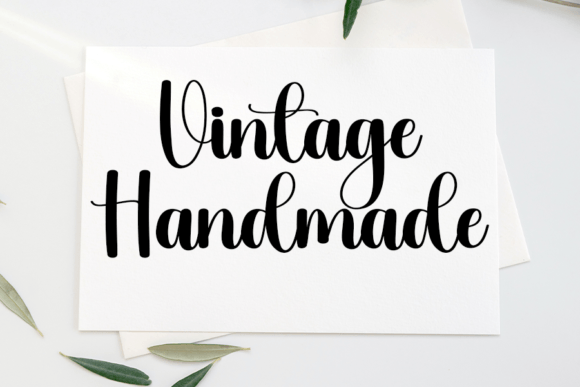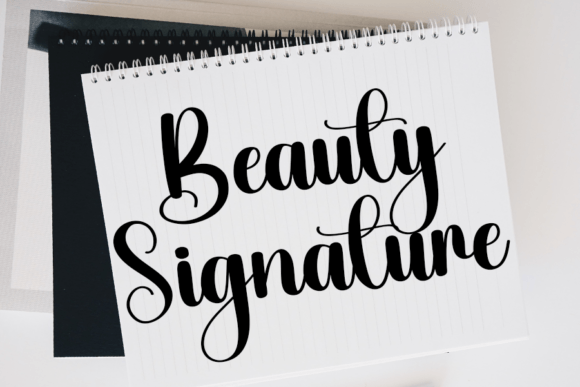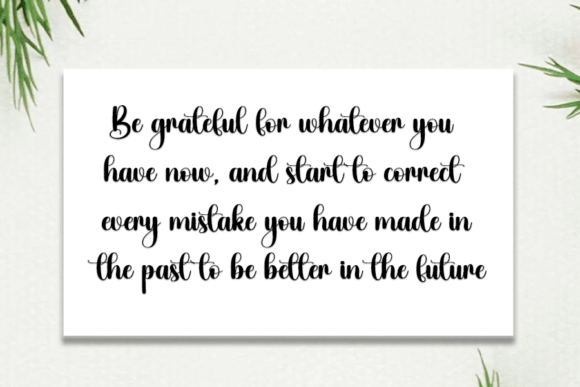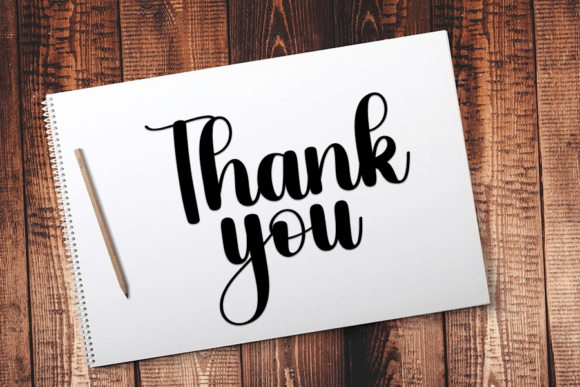
The Delicate Charm of Butterfly Font: Elevate Your Designs with a Touch of Elegance
In the world of typography, few fonts capture the essence of delicacy and whimsy as beautifully as the Butterfly font. This exquisite handwritten font is meticulously crafted to bring a cool and unique design element to a wide range of creative projects. Whether you’re a designer looking for the perfect typeface to enhance your visual creations or a crafter seeking to add a personal touch to your handmade products, the Butterfly font is sure to inspire.
What Makes Butterfly Font So Special?
Butterfly font is distinguished by its delicate, handwritten strokes that exude a sense of elegance and sophistication. Each letter is carefully designed to convey a sense of lightness and airiness, reminiscent of the gentle wings of a butterfly. This font is not just a typeface; it’s an artistic expression that can elevate your designs and give them a unique personality.
One of the standout features of the Butterfly font is its versatility. This font can be used in a multitude of design projects, including:
- Writing Letters and Invitations: Add a personal touch to your correspondence with beautifully styled letters and invitations that are sure to impress.
- Food Products: Elevate your food packaging or recipe designs with a font that conveys freshness and delicacy.
- Titles and Headings: Use Butterfly font to create stunning titles and headings for your blogs, articles, or marketing materials that demand attention.
- And More: The possibilities are endless! From crafting unique t-shirt designs to creating eye-catching posters, Butterfly font can be used in any project that requires a touch of elegance.
Why Designers and Crafters Love Butterfly Font
Designers and crafters alike are drawn to the Butterfly font for several reasons:
- Ease of Use: Despite its intricate design, Butterfly font is surprisingly easy to use, making it accessible to designers and crafters of all skill levels.
- Customization: The font’s unique design allows for a high degree of customization, enabling you to tailor your text to fit your project’s specific needs.
- Uniqueness: In a sea of generic fonts, Butterfly font stands out for its distinctive look, ensuring your designs won’t get lost in the crowd.
Tips for Getting the Most Out of Butterfly Font
To truly leverage the beauty of Butterfly font, consider the following tips:
- Pair with Complementary Fonts: Combine Butterfly font with simpler fonts to create visual interest and hierarchy in your designs.
- Experiment with Colors: Don’t be afraid to play with different colors to find the perfect match that enhances the delicate feel of the font.
- Use it Sparingly: While Butterfly font is beautiful, it can be overwhelming if overused. Balance it with plain text to maintain readability.
The Butterfly font is a beautiful addition to any designer’s or crafter’s toolkit. Its delicate, handwritten charm and versatility make it the perfect choice for a wide range of creative projects. Whether you’re looking to add a touch of elegance to your designs or simply want to stand out from the crowd, Butterfly font is sure to deliver. So why settle for ordinary when you can create something truly extraordinary with the Butterfly font?